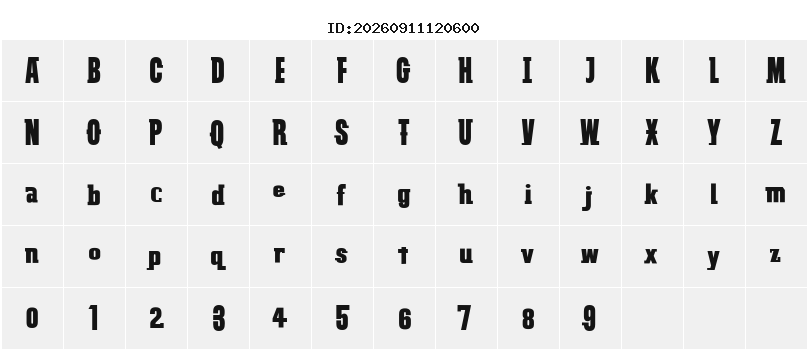
VTC SubwaySlam Preview
• Font Name: VTC SubwaySlam
• Designer: WolfBainX
About VTC SubwaySlam.ttf
VTC SubwaySlam.ttf is a modern, elegant sans-serif font designed for ultimate readability and visual harmony. Perfect for branding, headlines, web design, and print materials.